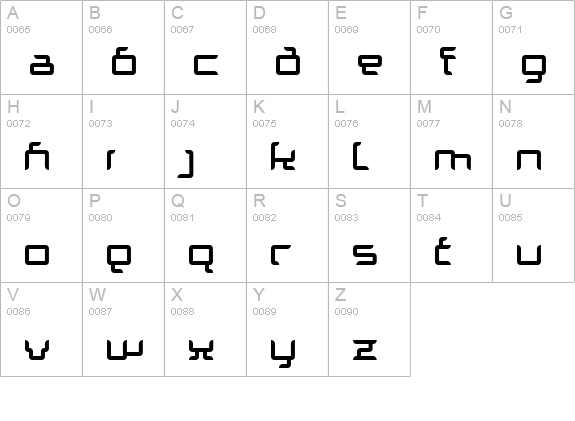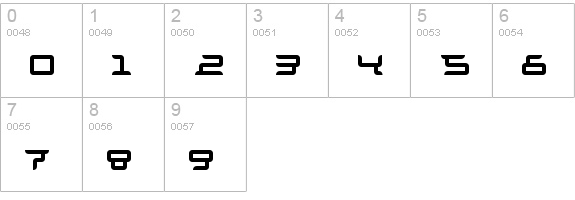
Granolae Font Details
Granolae font is a modern and stylish typeface that exudes elegance and sophistication. With its clean lines and sleek design, Granolae is perfect for a wide range of projects, from branding and advertising to editorial and web design. This versatile font features a balanced mix of sharp edges and smooth curves, creating a harmonious aesthetic that is both eye-catching and easy to read. What sets Granolae font apart is not just its visual appeal, but also its accessibility. This premium font is available for free download at FontsMarket.com, allowing designers and creatives to incorporate it into their work without any cost. Whether you're working on a personal project or a client's campaign, Granolae font offers a professional and polished look that is sure to impress. Embrace the beauty and functionality of Granolae font today by downloading it for free at FontsMarket.com. Elevate your designs with this stunning typeface and stand out from the crowd with its unique style and flair.